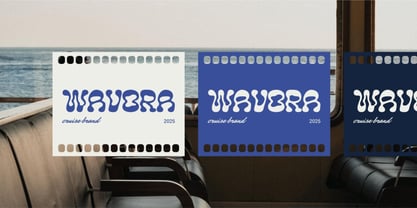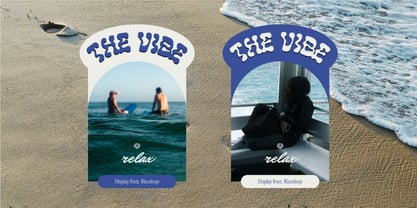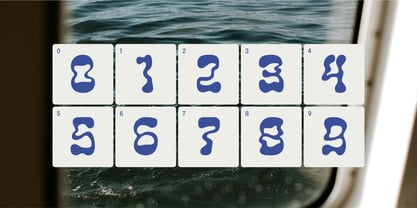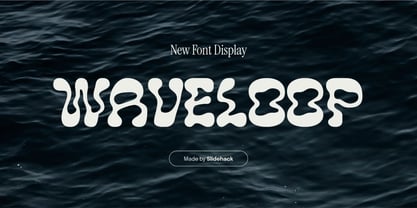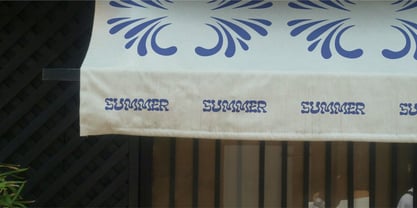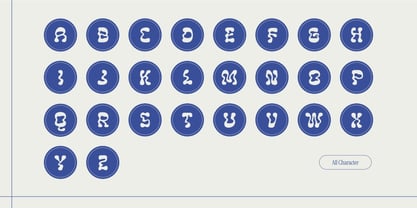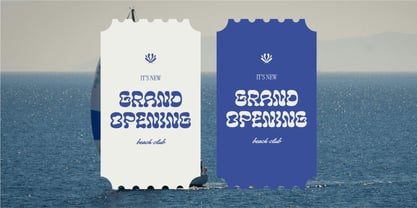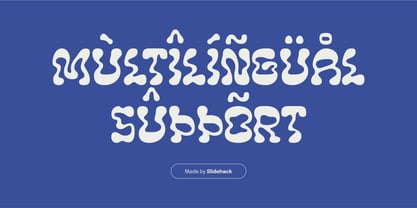
Waveloop
by Slidehack
The Waveloop Font Family was designed by Panca Hasan and published by Slidehack. Waveloop contains 1 styles.
Make your designs stand out with Waveloop, a bold and fluid display font inspired by ocean waves. Perfect for posters, music covers, branding, and creative projects. Waveloop brings playful movement and retro vibes to any layout, unique, stylish, and ready to make a splash in your next design.